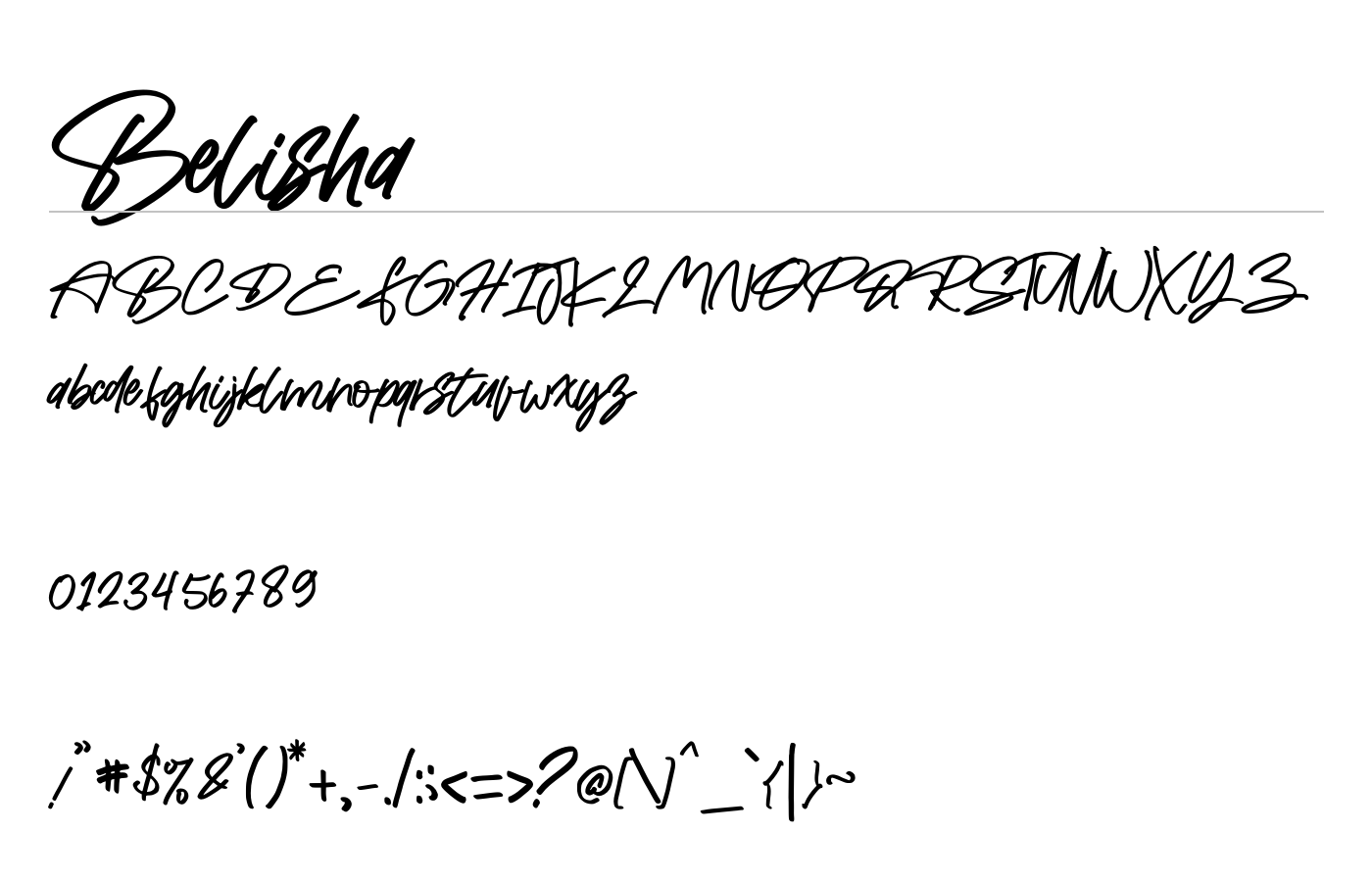
Belisha is a dynamic, handwritten script font with a casual, brush-like style that combines fluid strokes and energetic letterforms. Its medium weight and slightly condensed width give it a natural, personal touch, making it perfect for creative branding, invitations, and expressive headlines where a lively and approachable feel is desired.
Belisha Font
About Belisha Font
| Font family | Belisha Font |